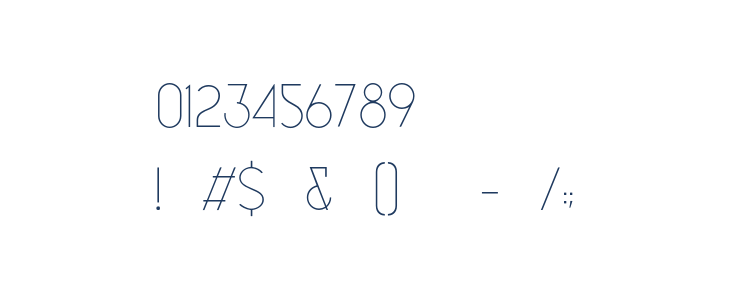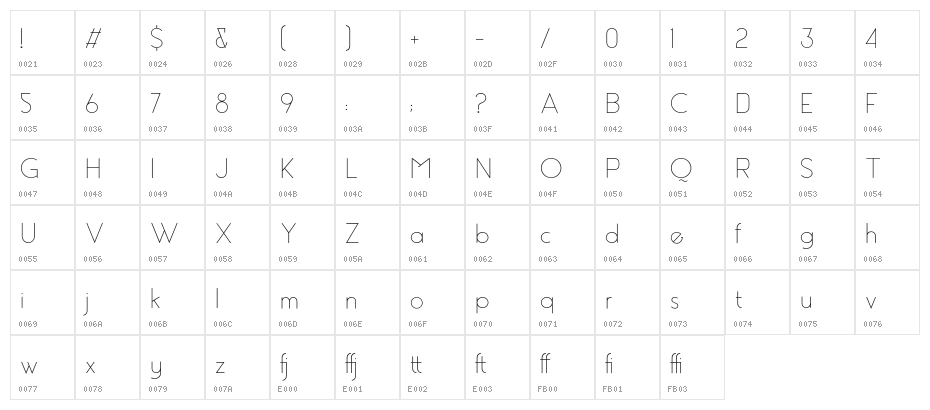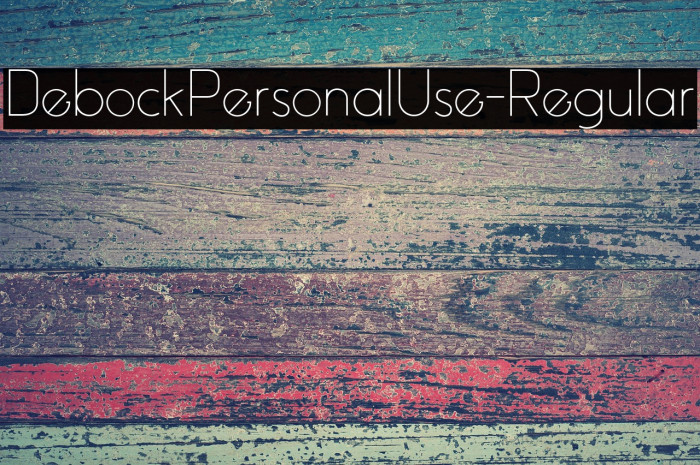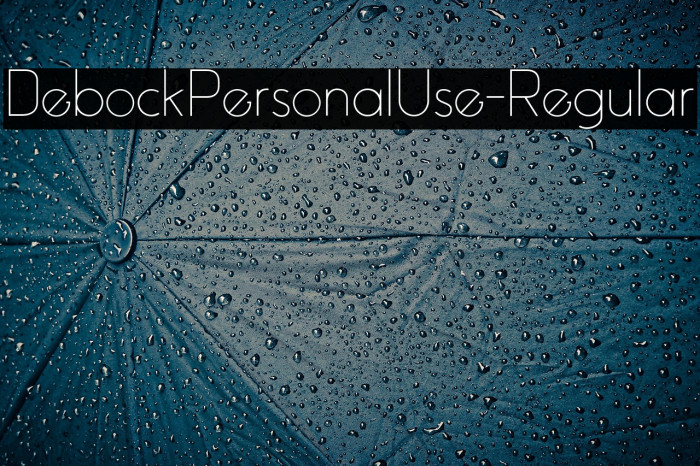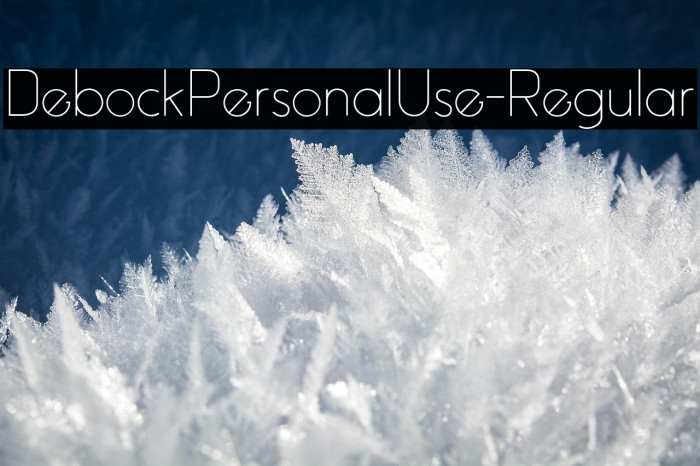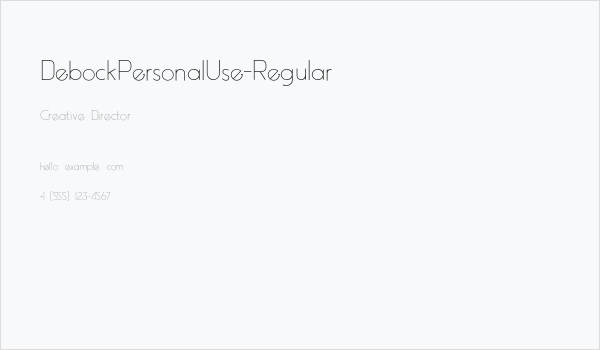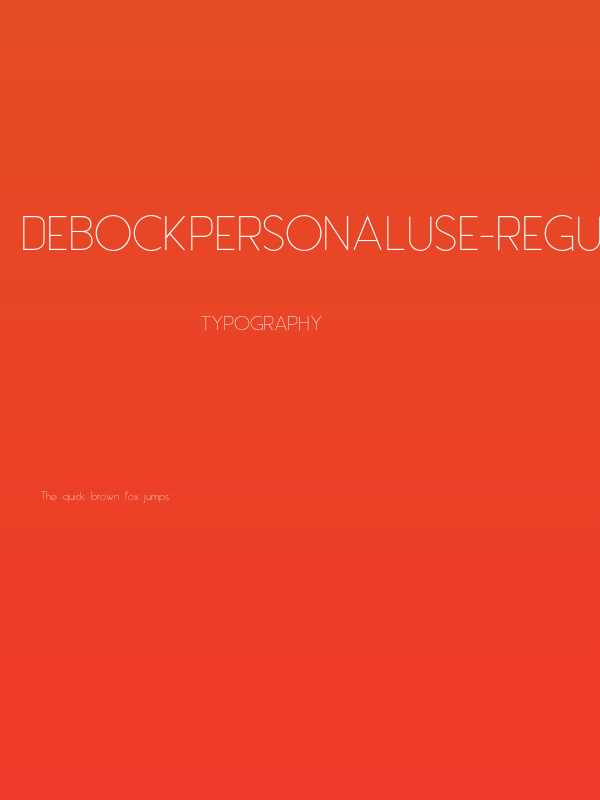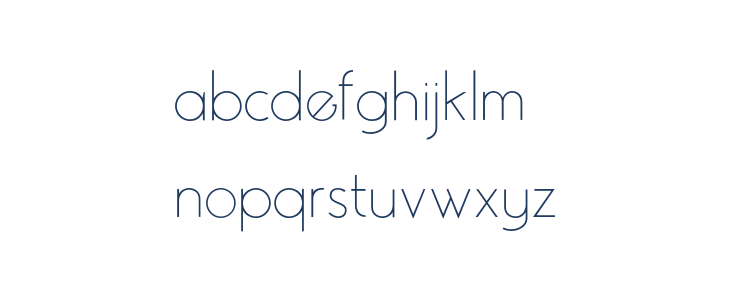
DebockPersonalUse-Regular Font
DebockPersonalUse-Regular Description
This font features a clean and modern design with thin, uniform strokes that give it a sleek and minimalist appearance. The characters are well-proportioned with a geometric influence, evident in the consistent line thickness and sharp angles. The uppercase letters are tall and elegant, while the lowercase letters maintain a harmonious balance with rounded forms. The numerals are straightforward and align well with the overall style. Special characters are distinct and maintain the font's minimalist aesthetic. This font is versatile, suitable for a variety of design applications where a contemporary and stylish look is desired.
| Use Case | Headlines, Logos, Editorials |
| Proposed Projects | Ideal for branding, modern web design, editorial layouts, and minimalist posters. |